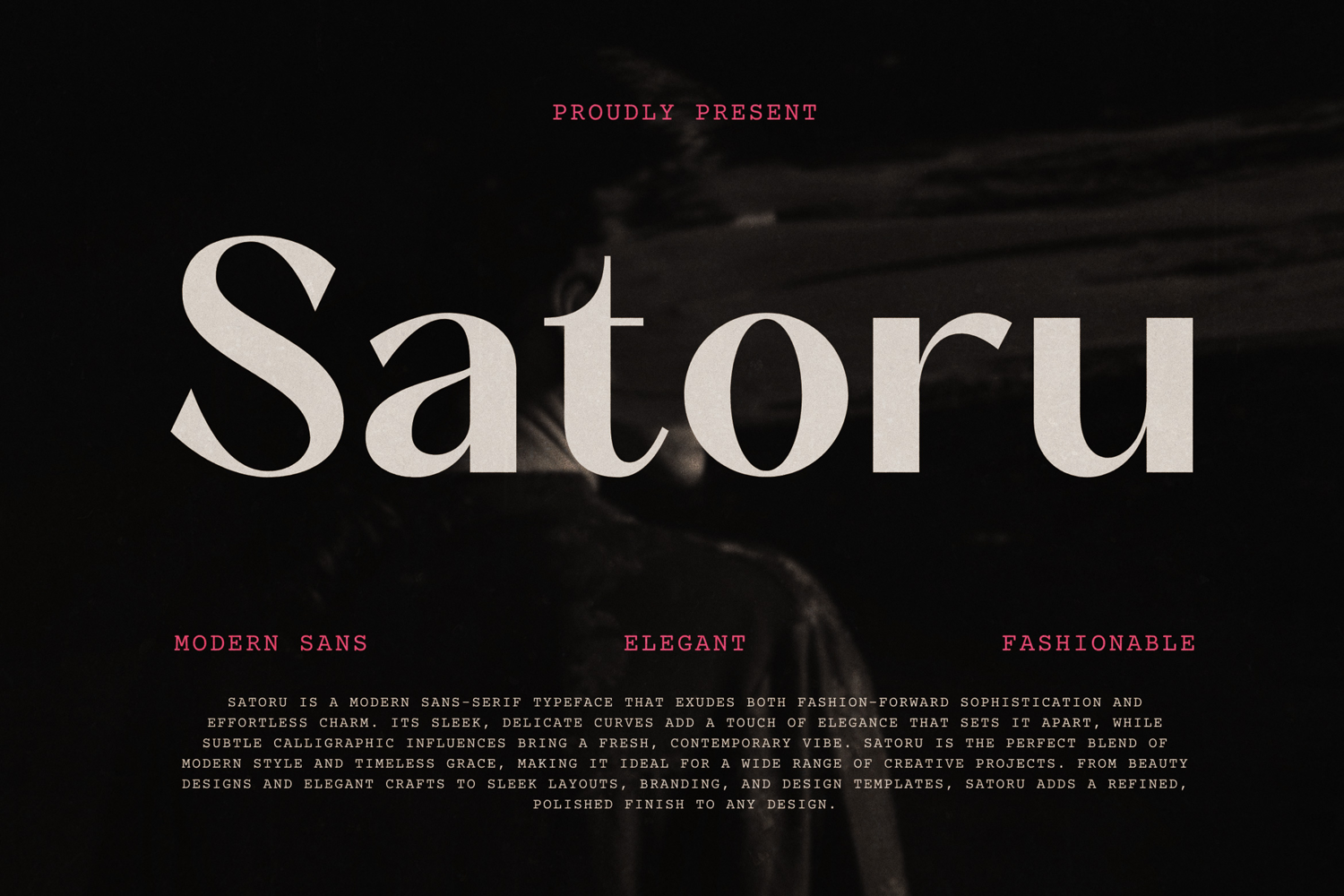
Satoru
Introducing Satoru Modern & Elegant San Serif Font. Satoru is a modern and classy typeface, best used as a display for headings, logos, branding, magazines, product packaging and invitations. Satoru come with clean lines and smooth curves give any project an extra touch of class.